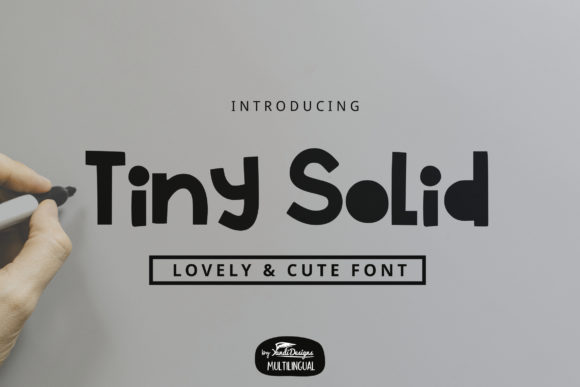
Introducing Tiny Solid Font - A Whimsical Touch to Your Creative Endeavors!
Journey into a world of enchanting lettering with Tiny Solid Font, a captivating display font crafted by the ingenious YandiDesigns. This playful font exudes a charm that's both adorable and mischievous, making it an irresistible choice for projects seeking a touch of whimsy. Picture this font dancing across your designs, evoking a sense of childlike wonder.
Tiny Solid's endearing personality shines through its playful letterforms, each meticulously crafted to evoke a sense of joy and lightheartedness. Its bold, solid structure ensures maximum legibility, while retaining an air of delicate charm. This font is a visual treat, adding a pop of personality to any project it graces.
Unleash your creativity and let Tiny Solid Font transform your designs into whimsical masterpieces. Its versatility knows no bounds, making it perfect for a myriad of projects, from eye-catching quote art that speaks to the heart to whimsical school projects that ignite imaginations.
With Tiny Solid Font at your disposal, you can:
1. Create Enchanting Quote Art - Let your words dance with delight as Tiny Solid Font lends its charm to your favorite quotes, transforming them into captivating works of art. Picture your quotes adorned with this playful font, ready to inspire and uplift.
2. Design Joyful School Projects - Embark on a creative adventure with Tiny Solid Font as your trusty companion. Watch as school projects come alive with imagination, captivating both students and teachers alike. From vibrant posters to engaging presentations, Tiny Solid Font adds a touch of magic to every assignment.
3. Craft Unforgettable Invitations - Make every invitation a cherished keepsake with Tiny Solid Font's irresistible charm. Its playful character is sure to delight guests of all ages, setting the tone for a truly memorable occasion.
4. Add a Personal Touch to Greeting Cards - Spread warmth and cheer with Tiny Solid Font, transforming ordinary greeting cards into heartfelt expressions of love and care. Let your messages shine with a unique personality that's sure to leave a lasting impression.
5. Elevate Social Media Posts - Capture attention and captivate your audience with Tiny Solid Font on your social media platforms. Its quirky charm will make your posts stand out from the crowd, ensuring your messages reach their intended audience and make an impact.